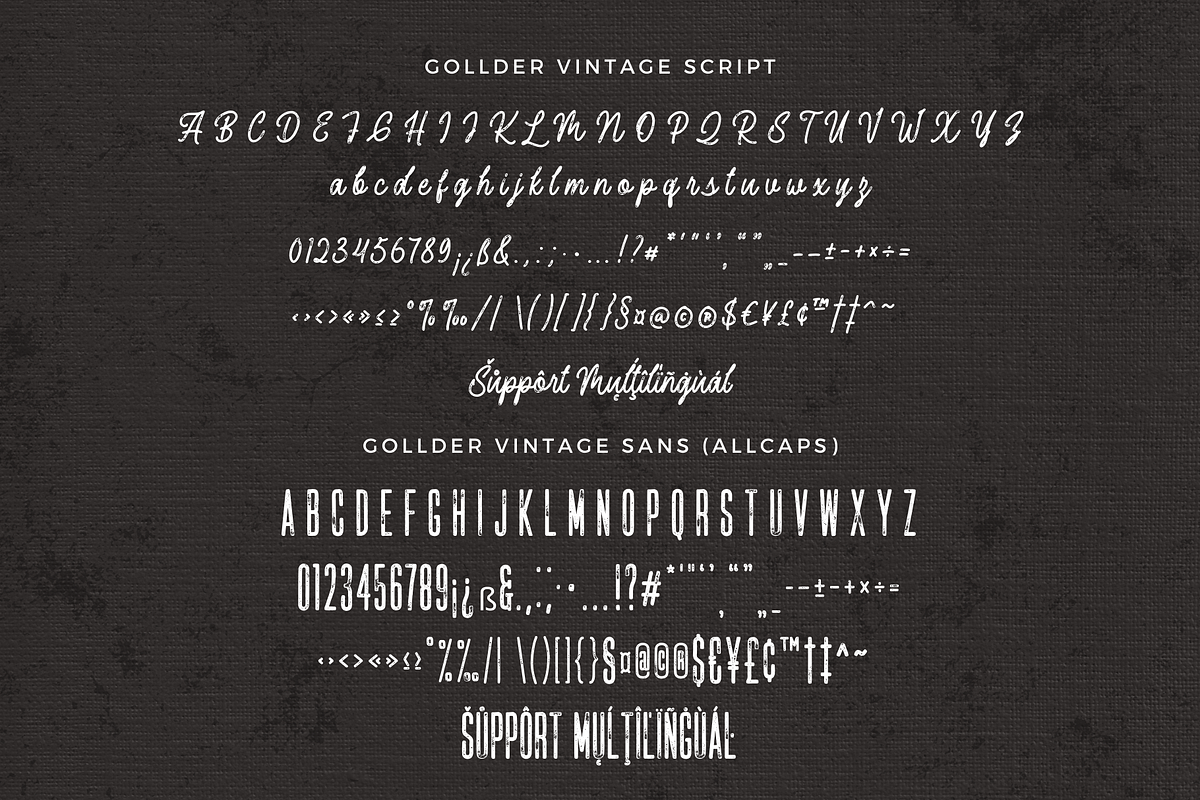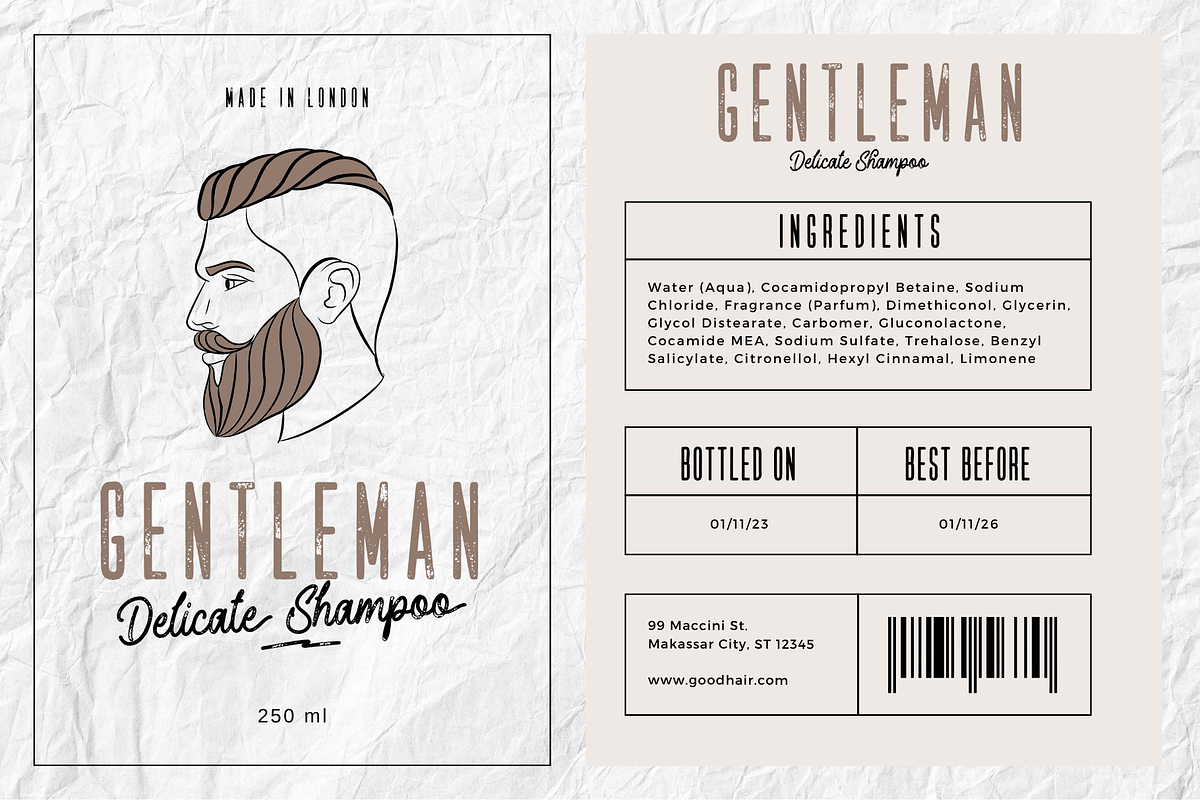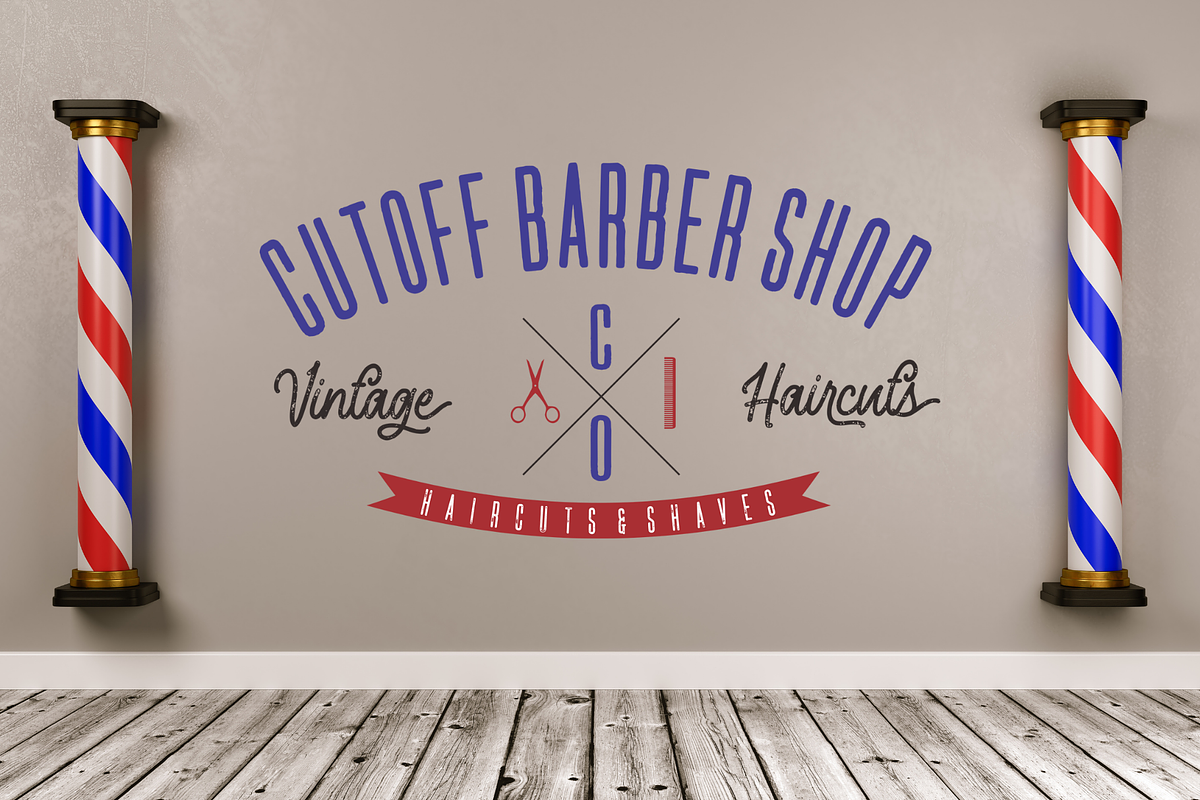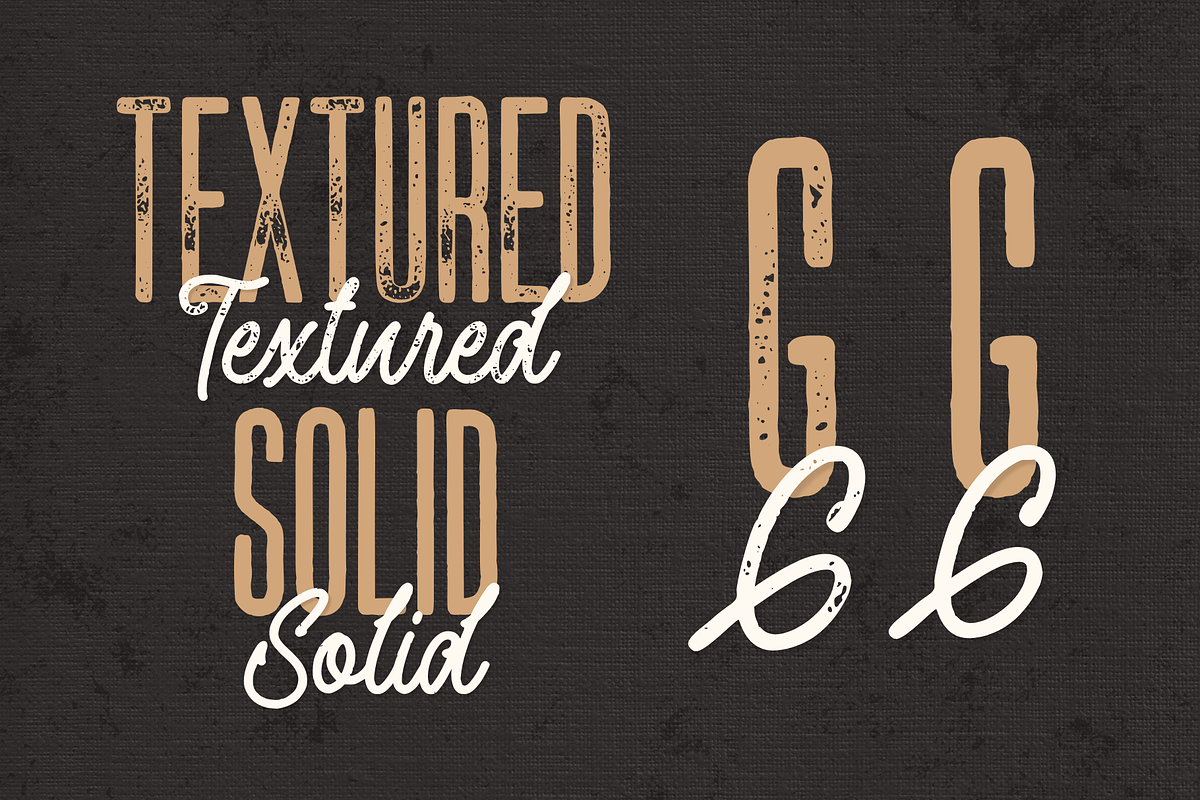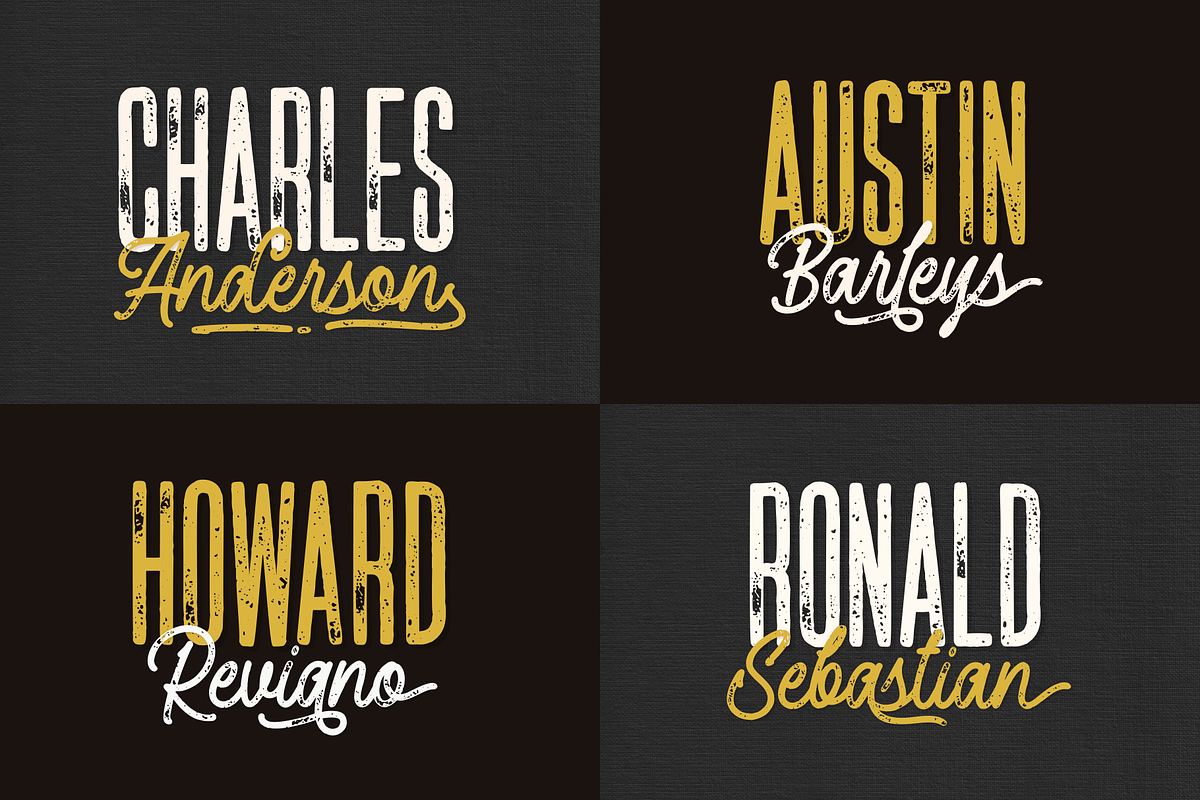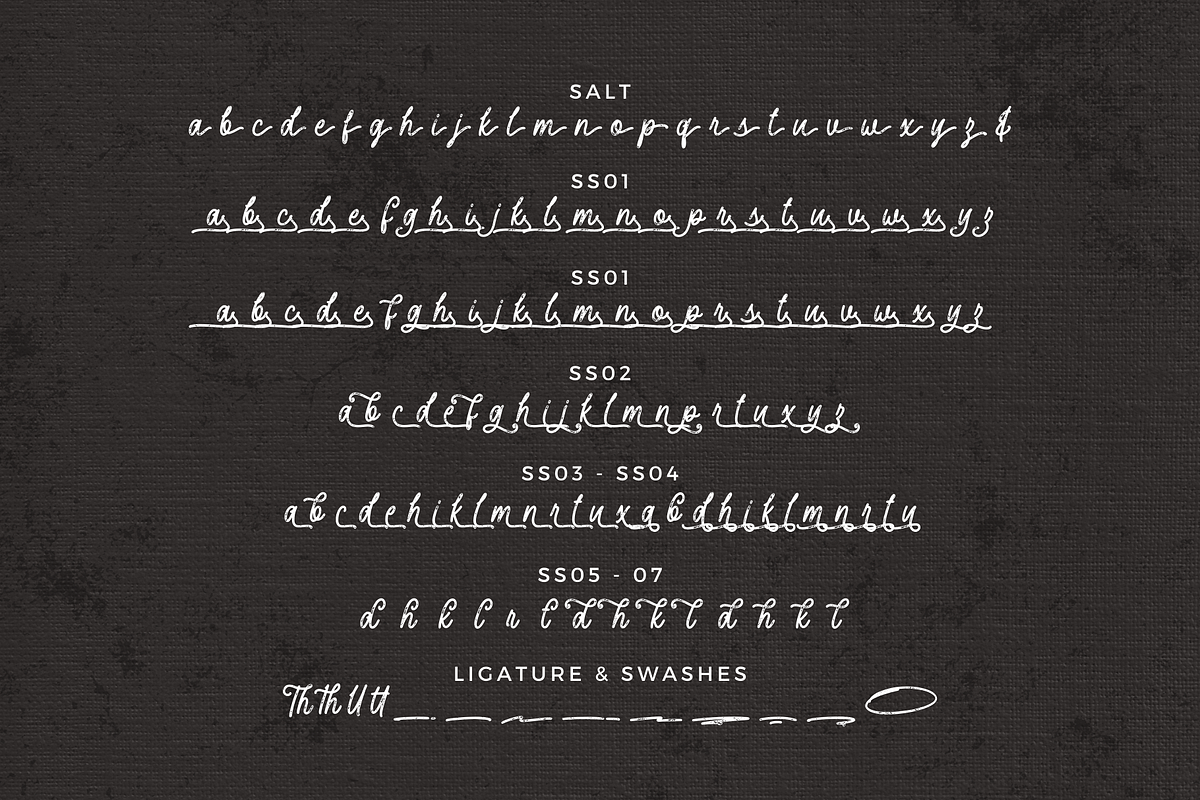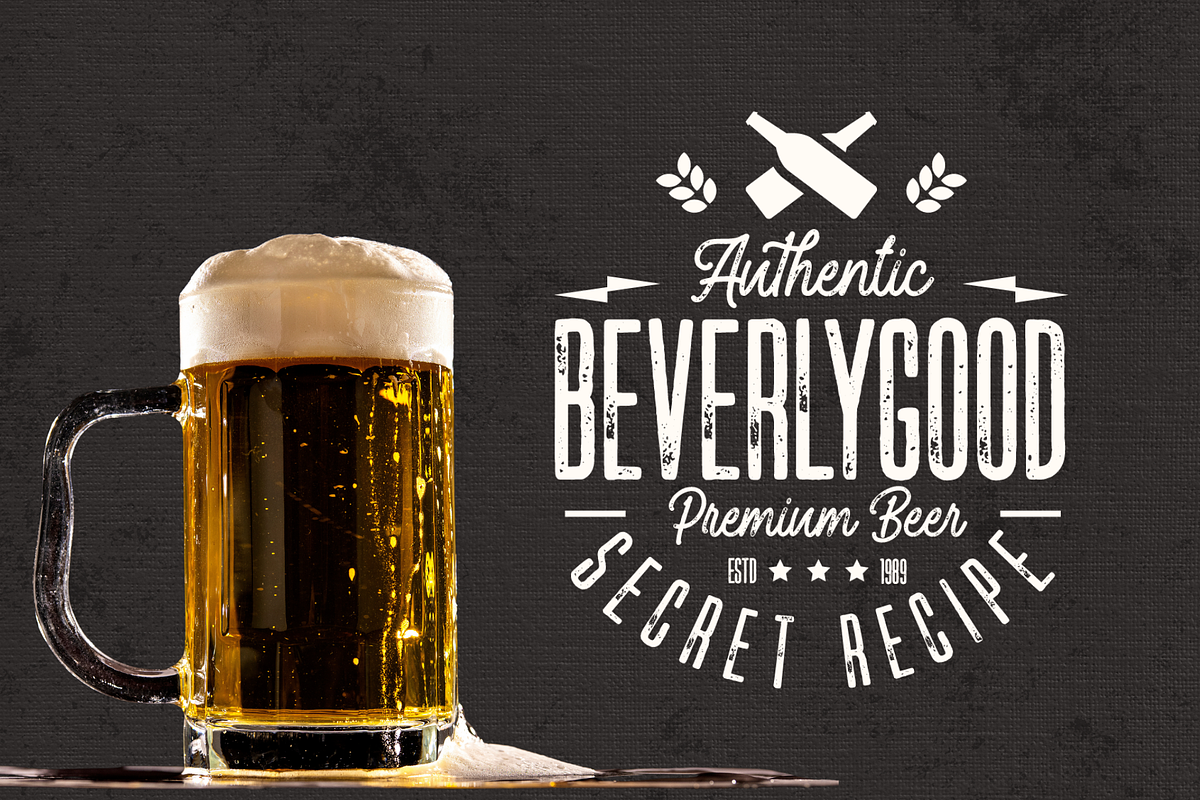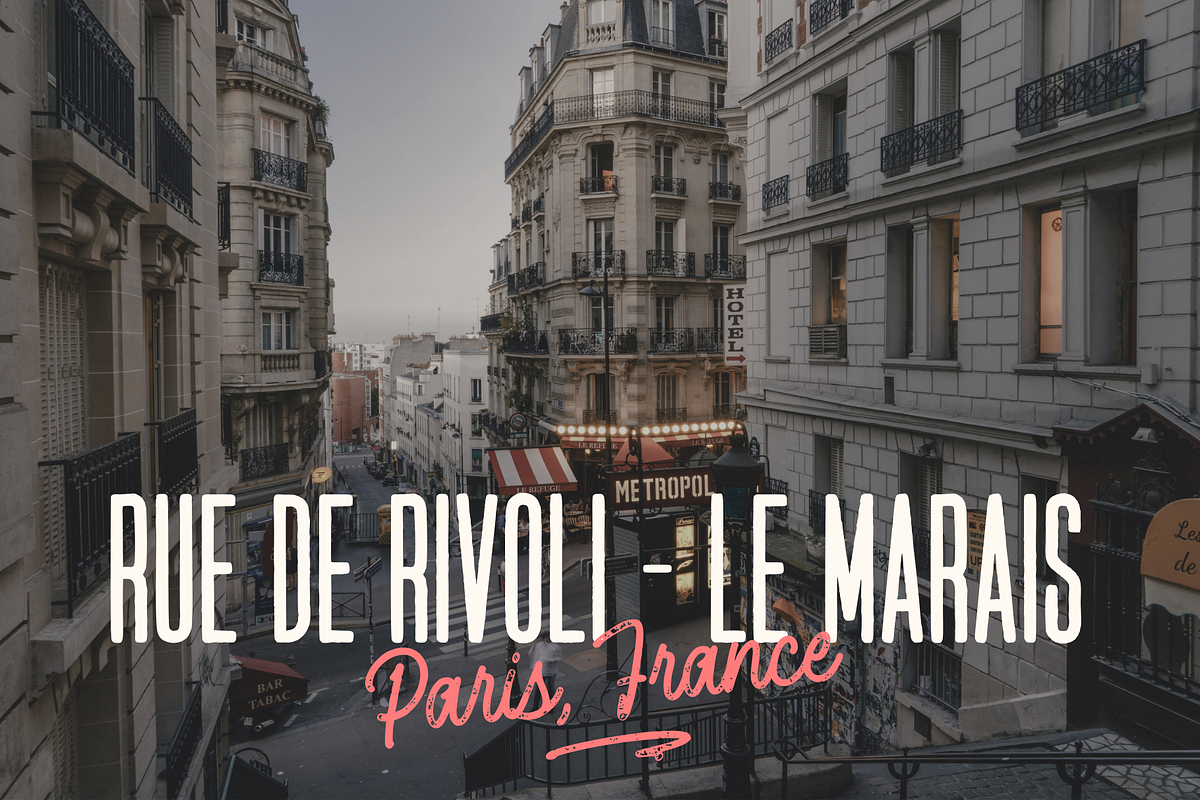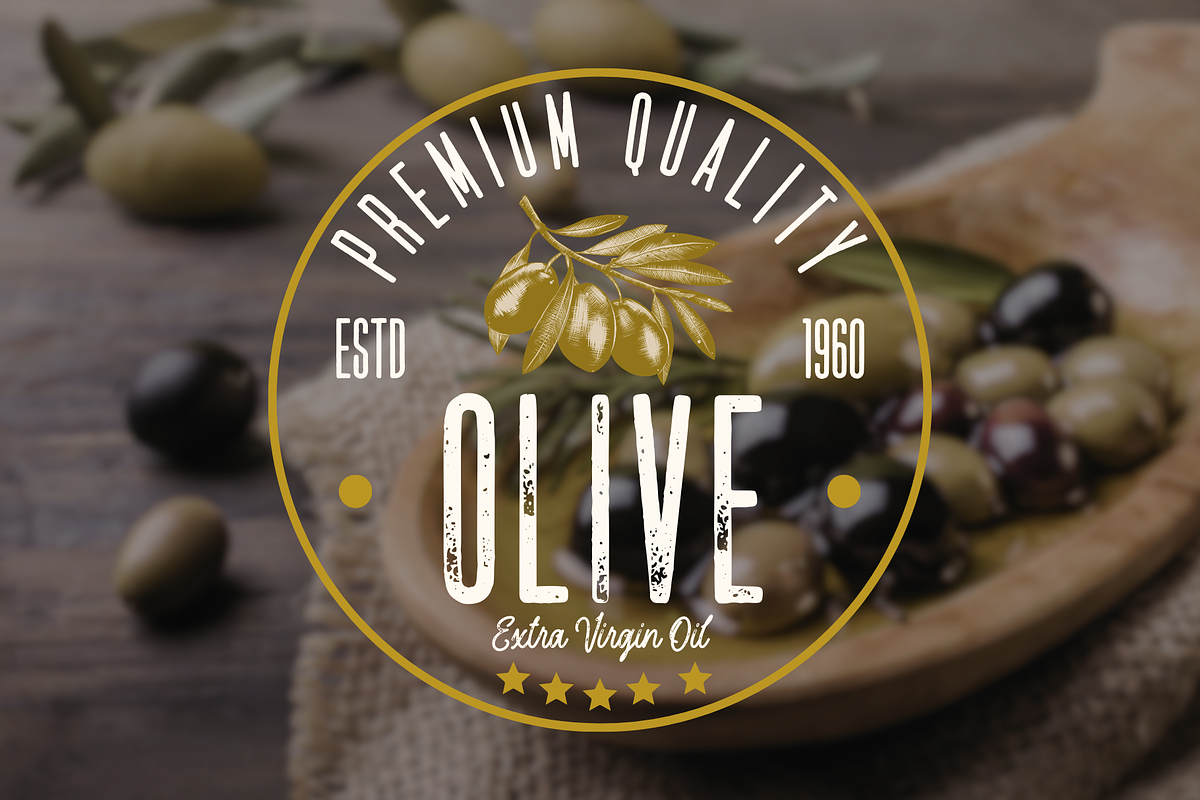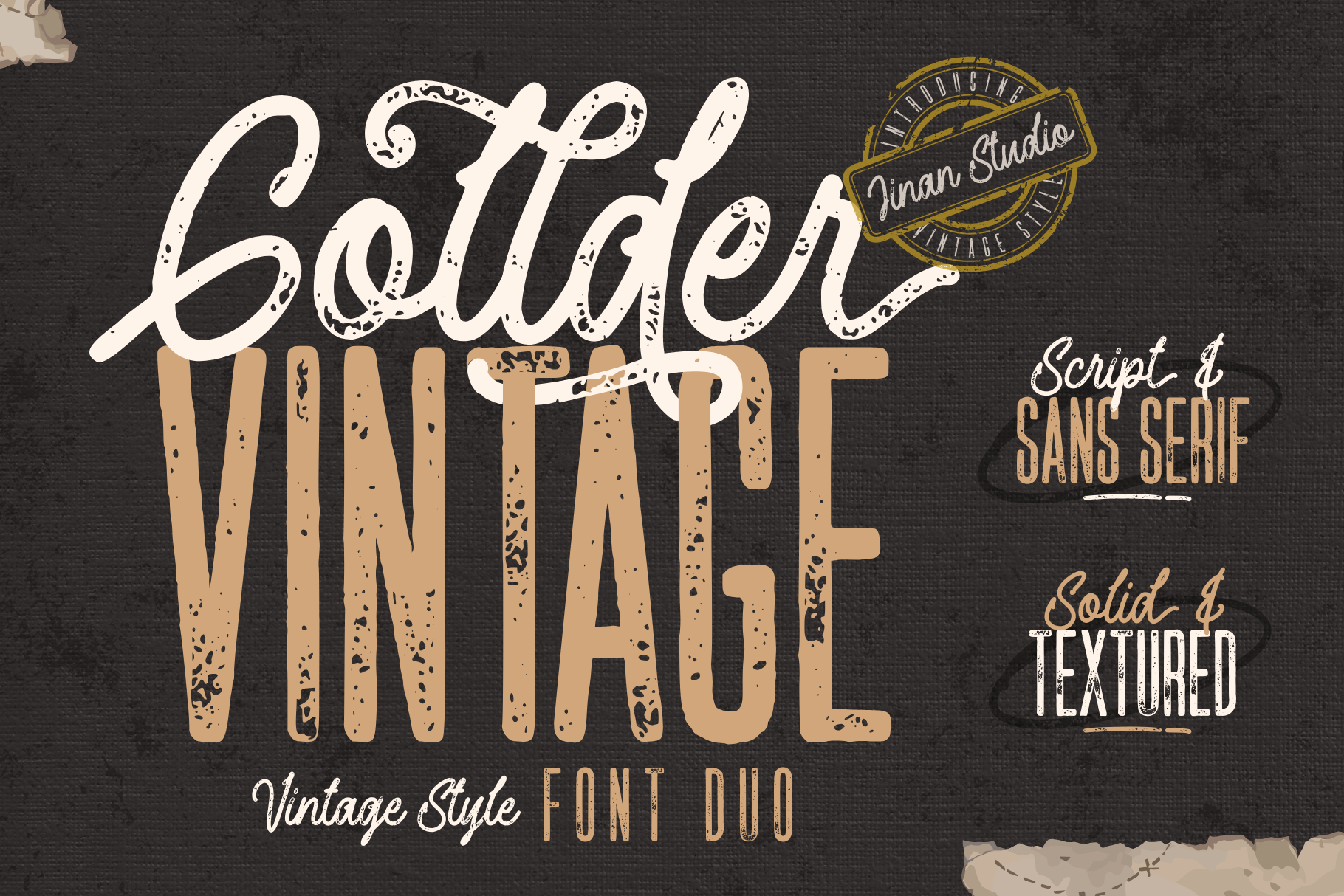
Gollder Vintage Font Duo
Introducing, Gollder Vintage Font Duo is an excellent choice for logo design, branding, packaging, business card, and adventure-themed designs. Its combination of script and sans serif styles, along with the textured and solid options, provides ample creative opportunities for designers to explore and create stunning visual identities and marketing materials.
A set of uppercase and lowercase glyphs
Number, symbol, and punctuation
Alternates, ligatures, and swashes (script version)